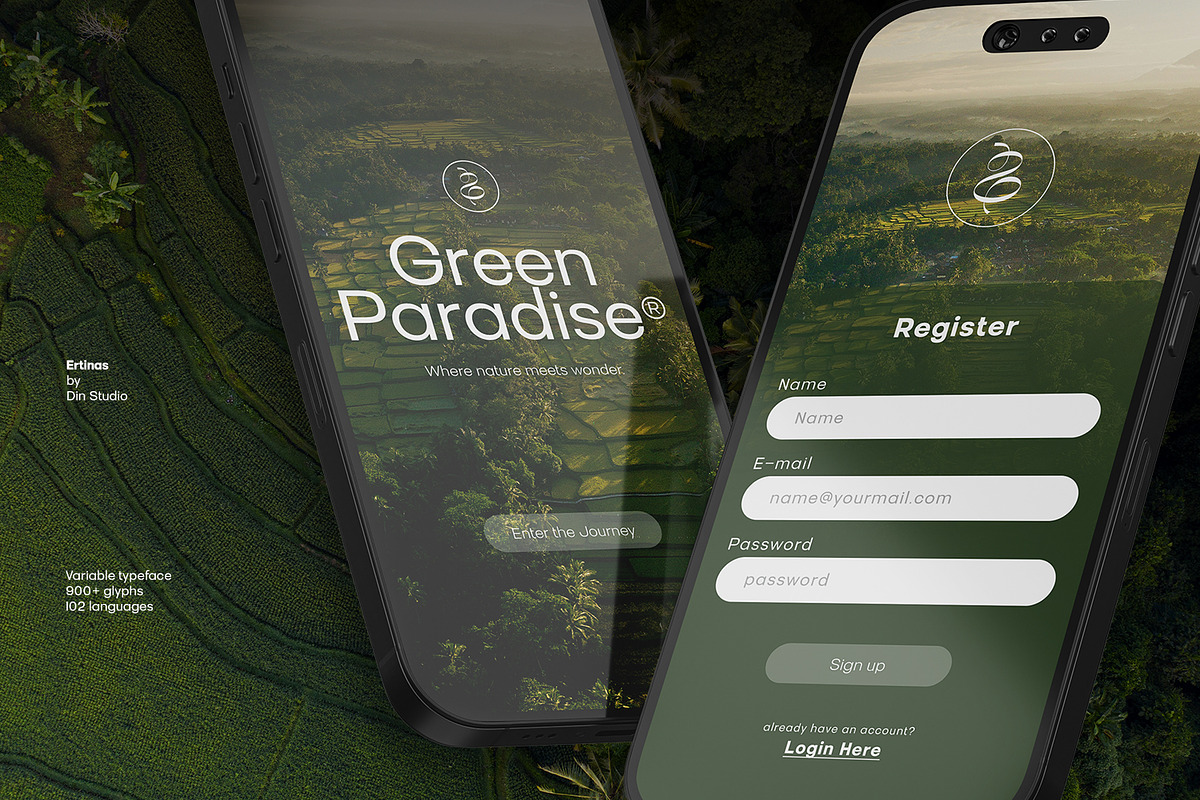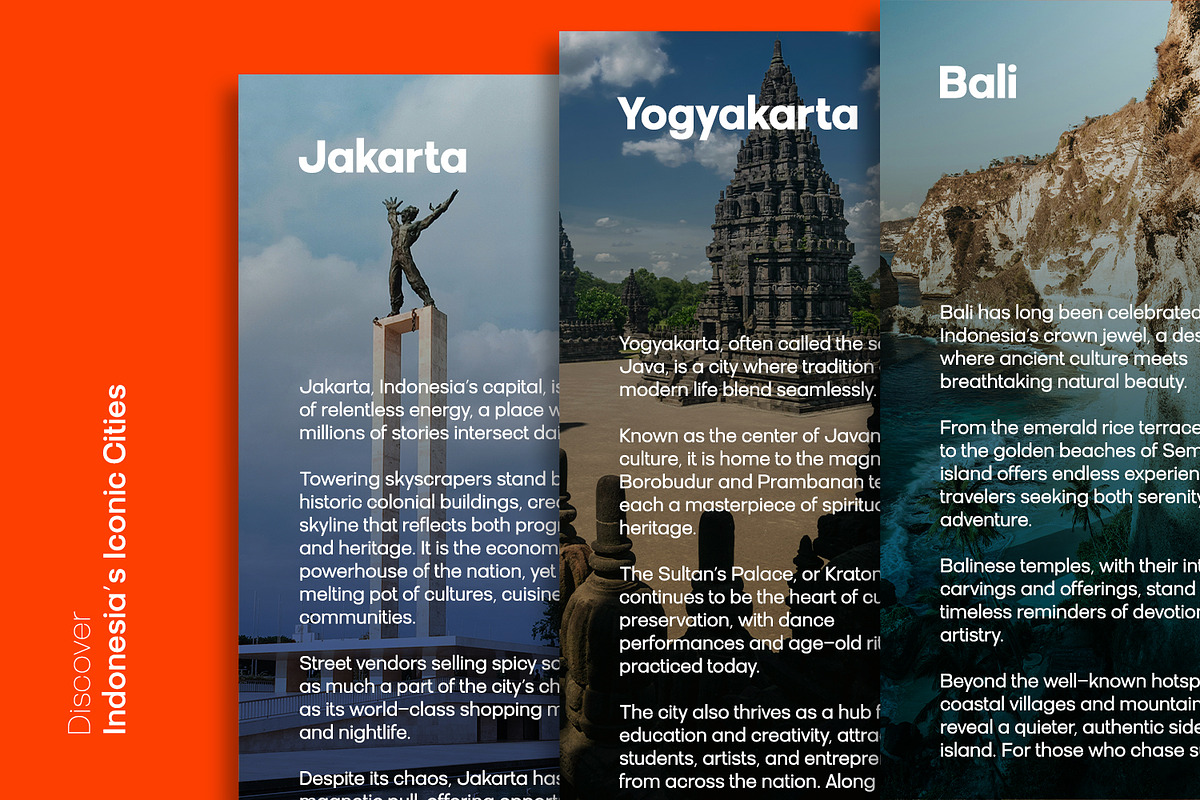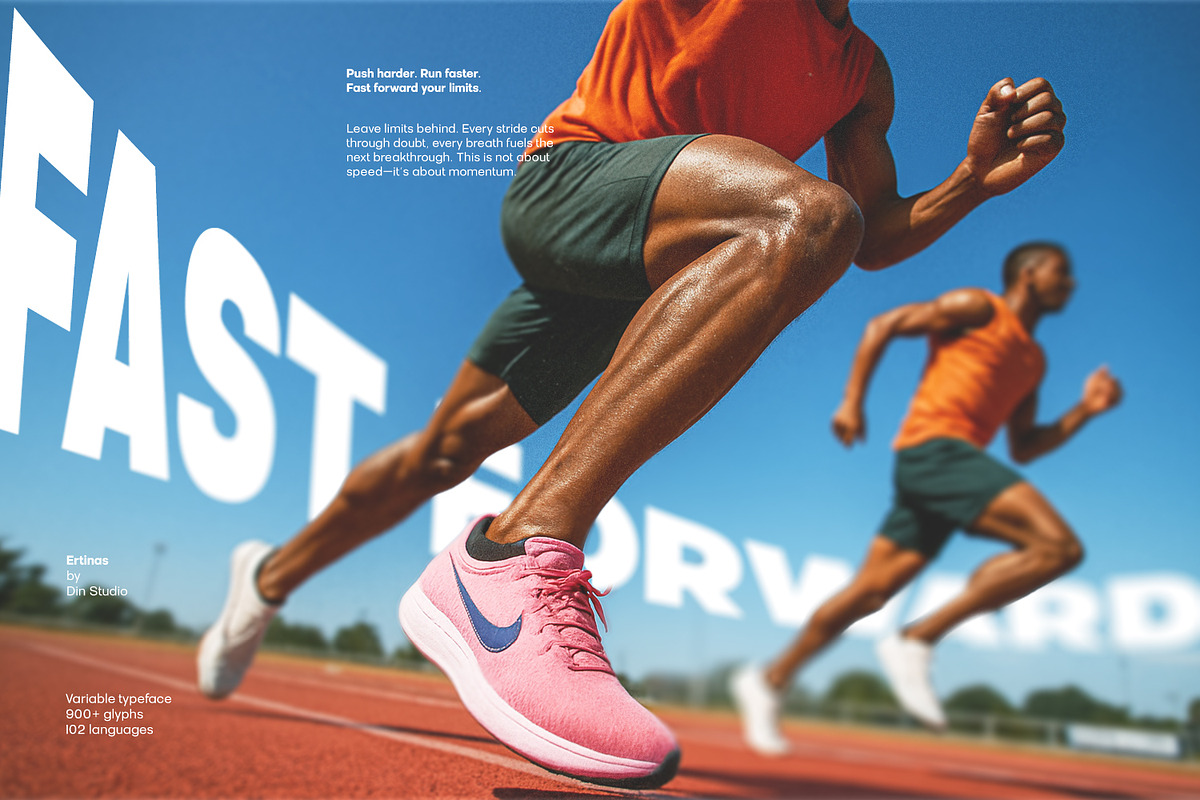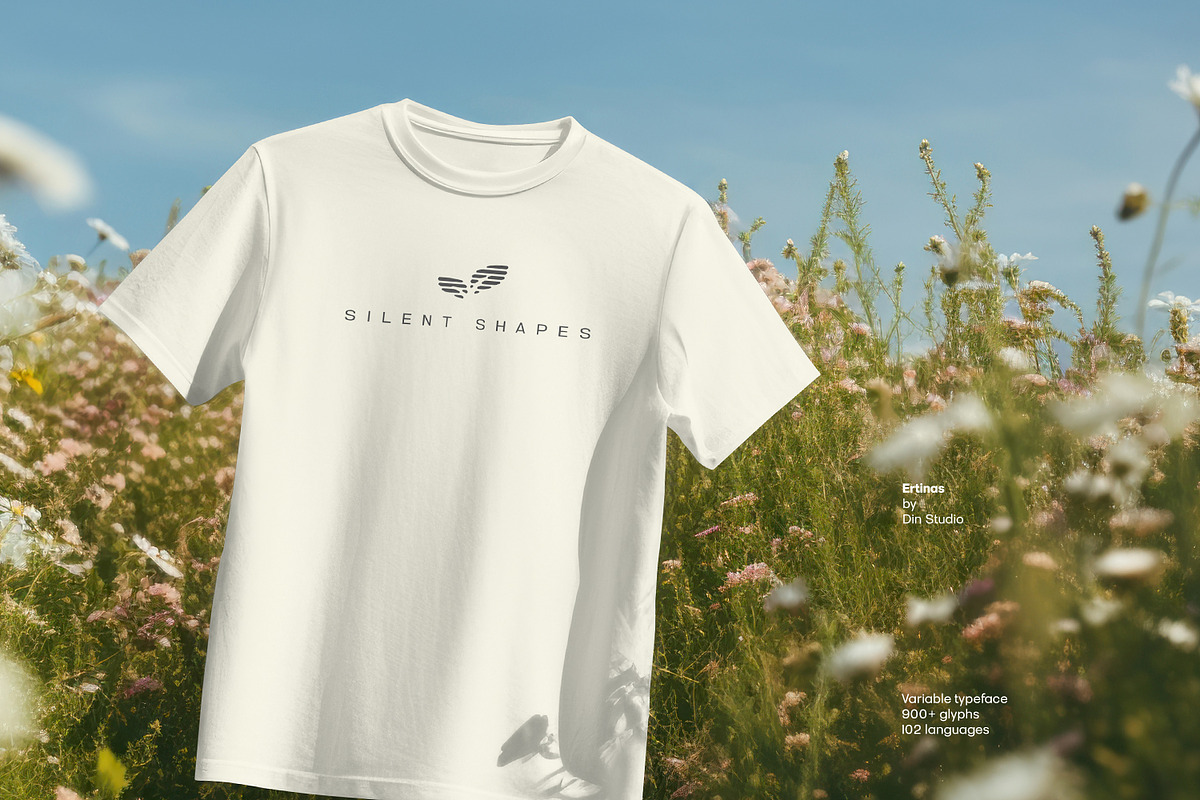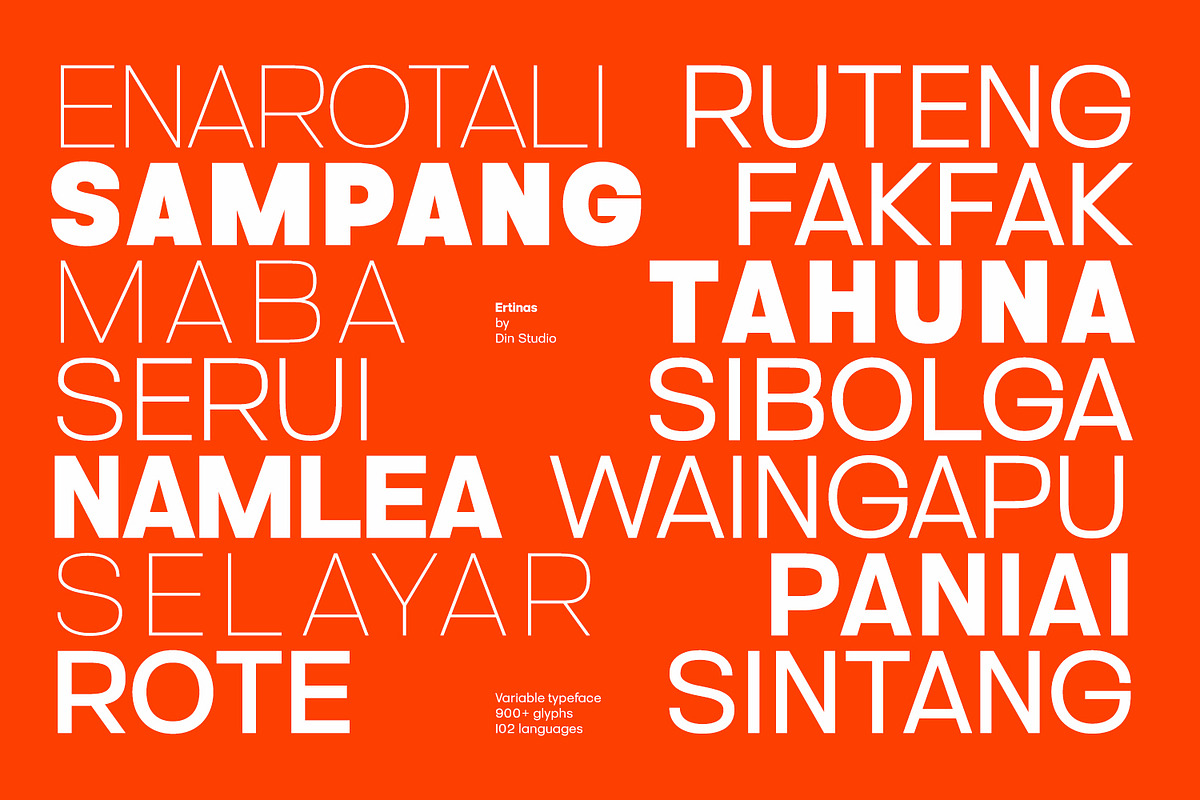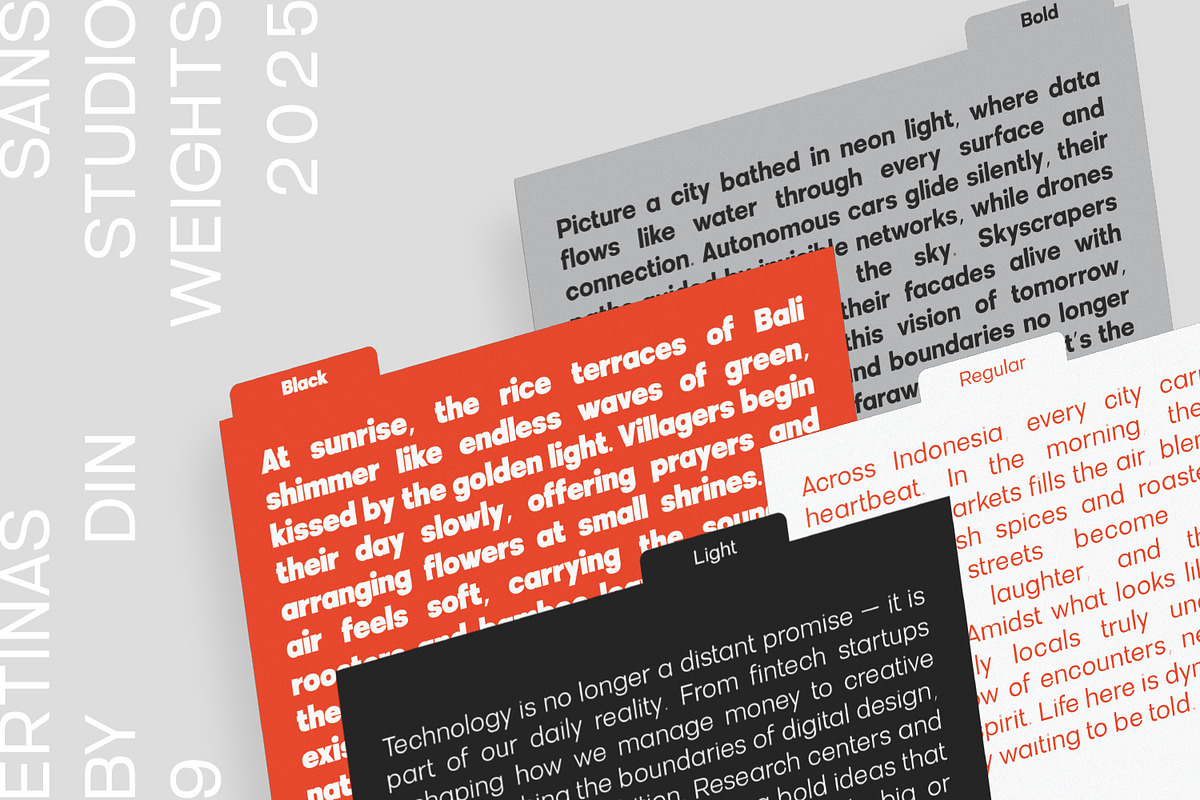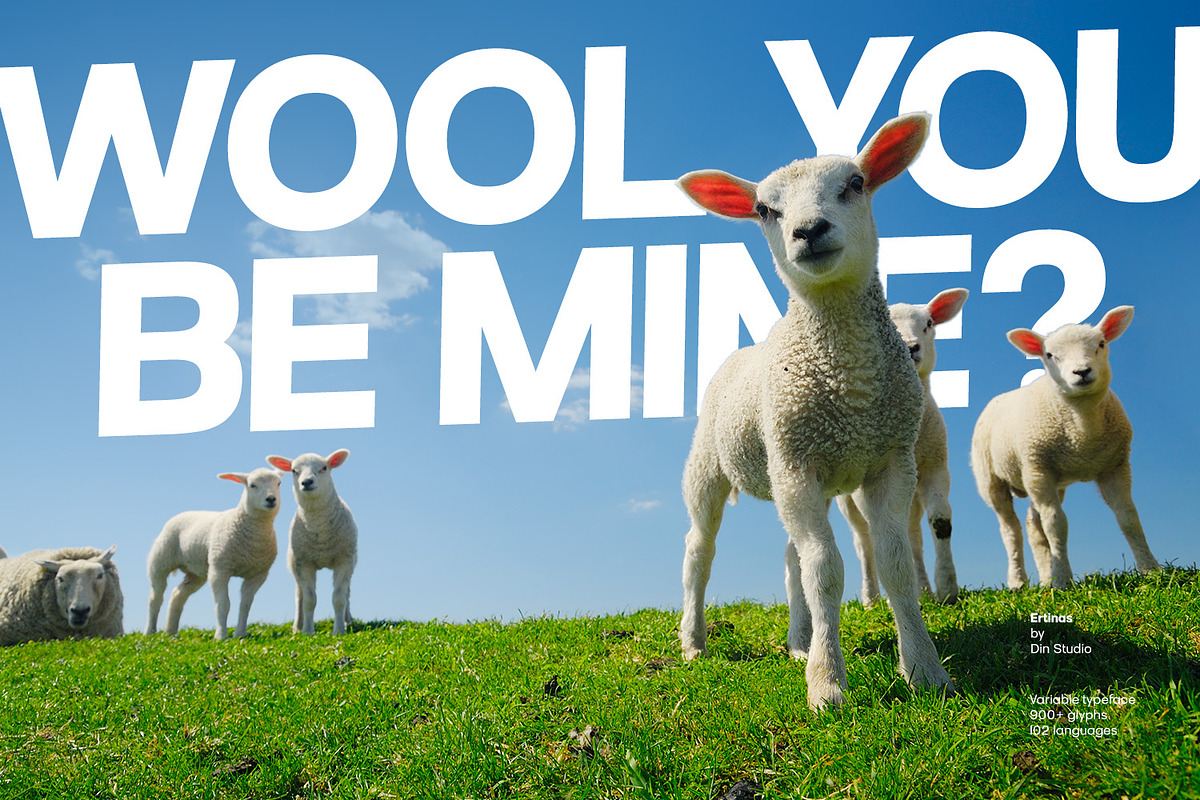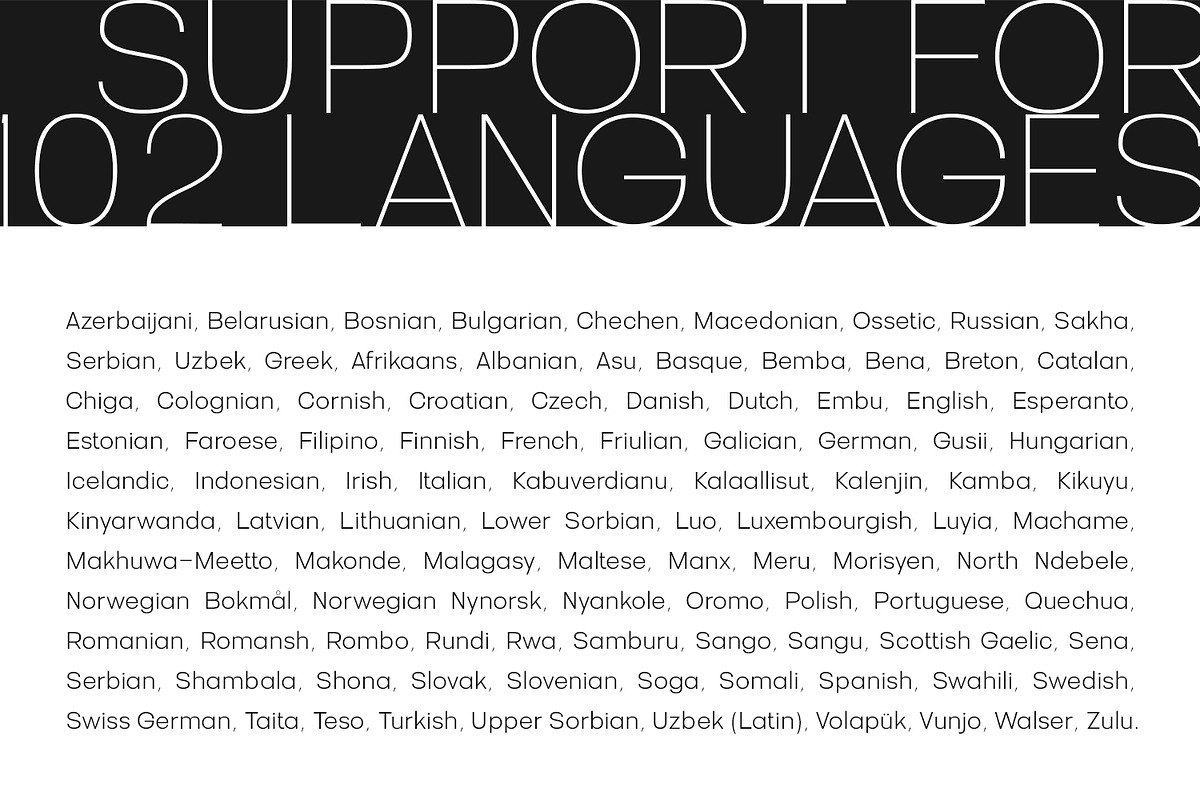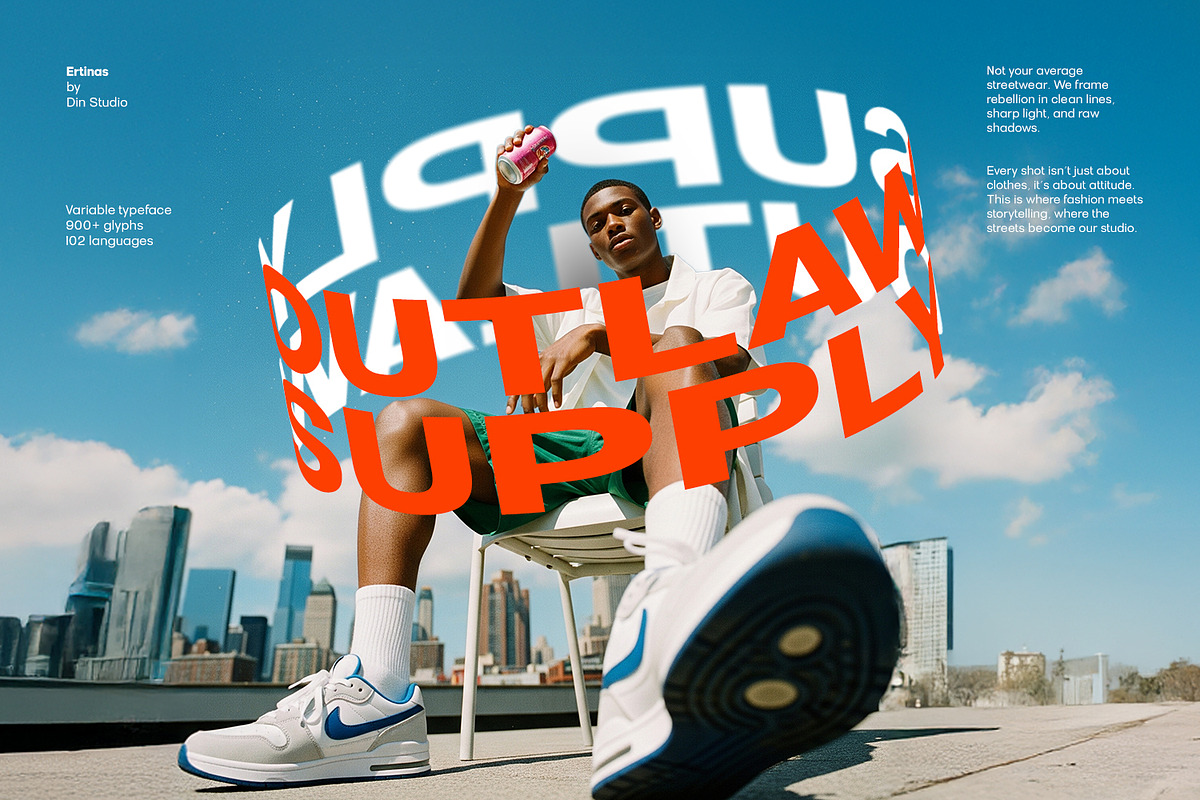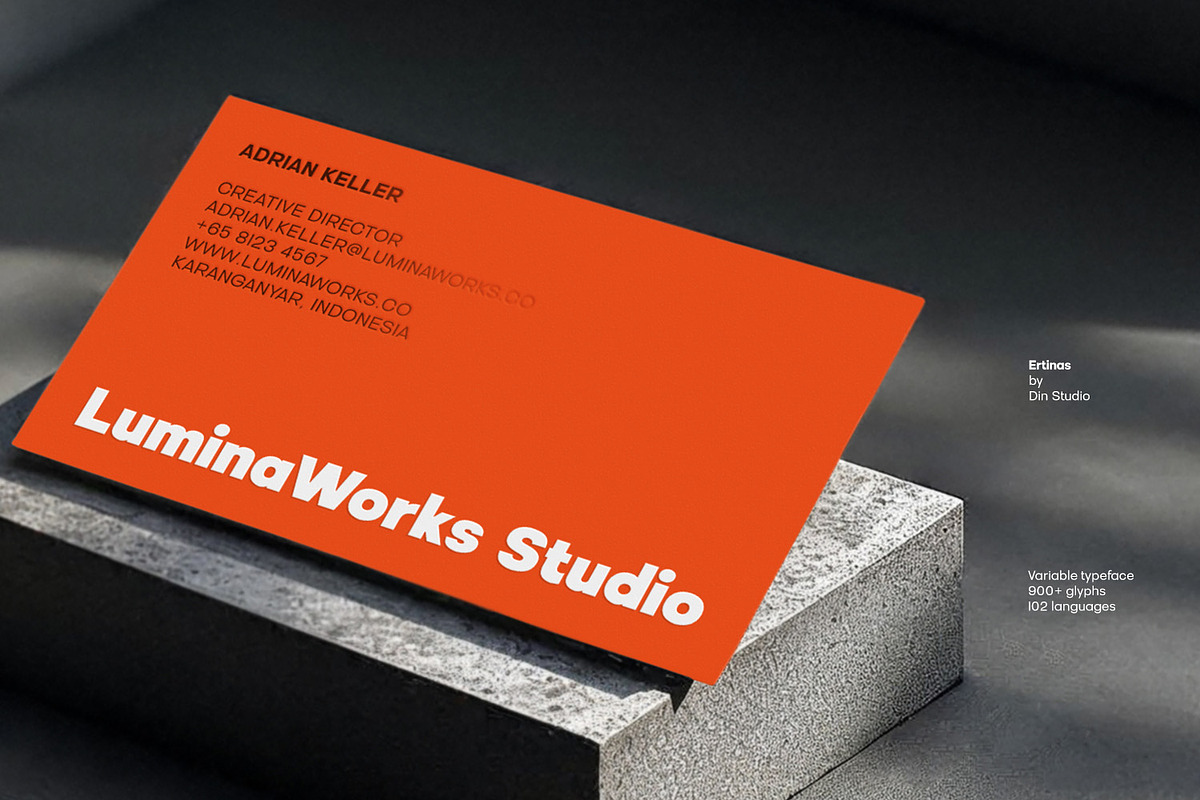
Ertinas
Ertinas is a modern sans serif font family crafted to embody simplicity, elegance, and luxury. Every curve and line in Ertinas is thoughtfully designed to convey modern minimalism while maintaining a warm, human touch. With nine distinct weights — from Thin to Black — this versatile typeface offers exceptional flexibility for both display and body text. Its clean geometry and graceful proportions make it the perfect choice for every design. In addition, enjoy the features here.
Ertinas fits in branding, quotes, name cards, apparels, logos, posters, and many more designs. Find out more ways to use this font by taking a look at the font preview.